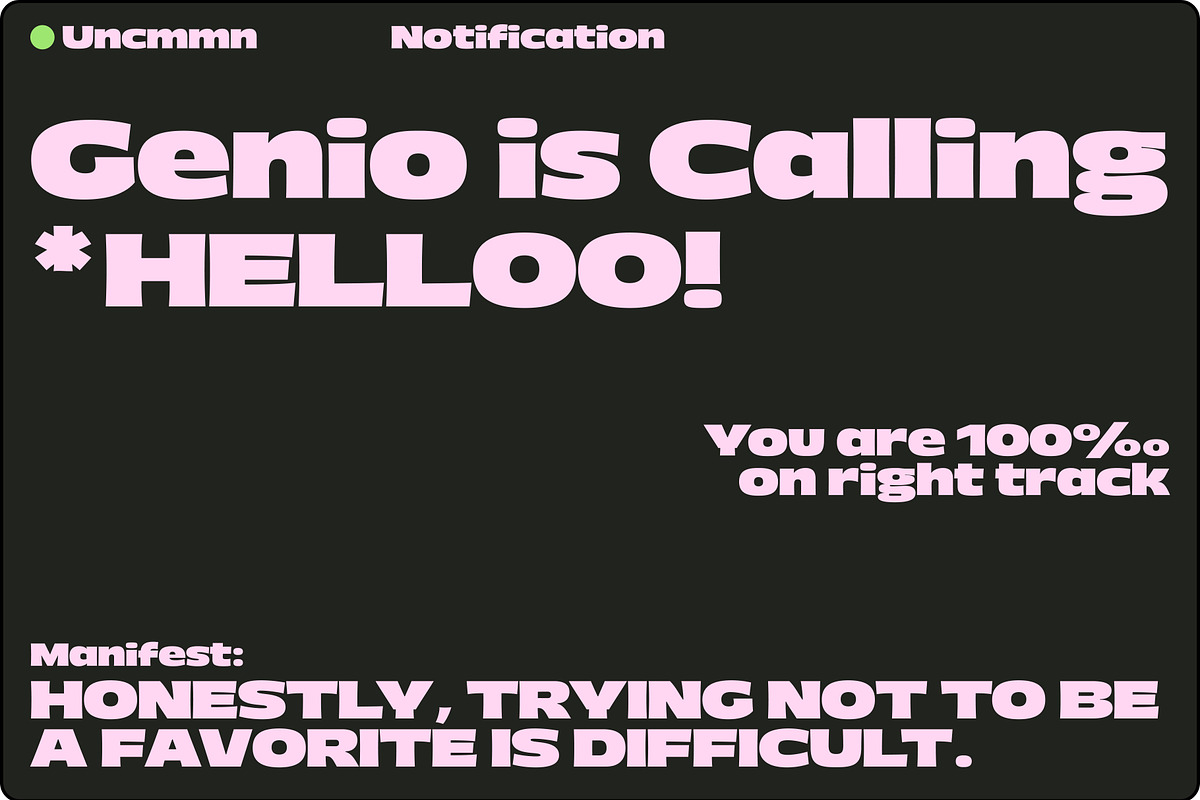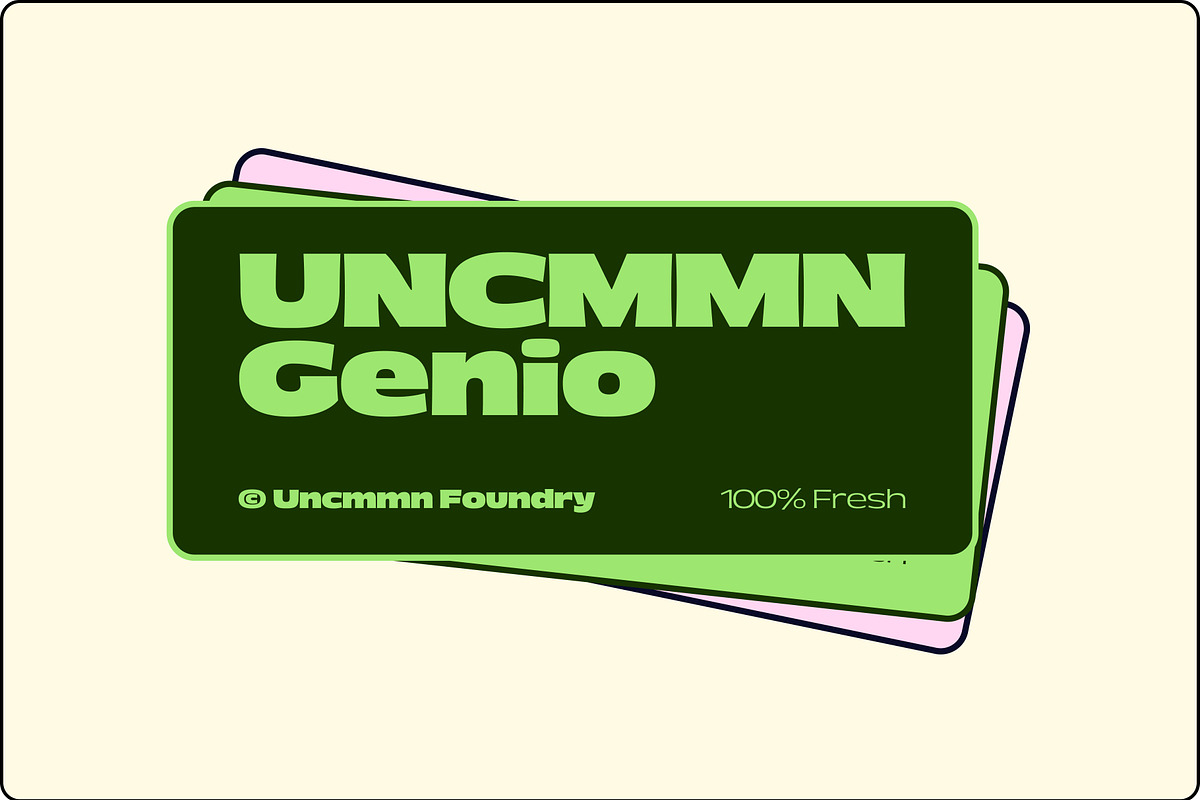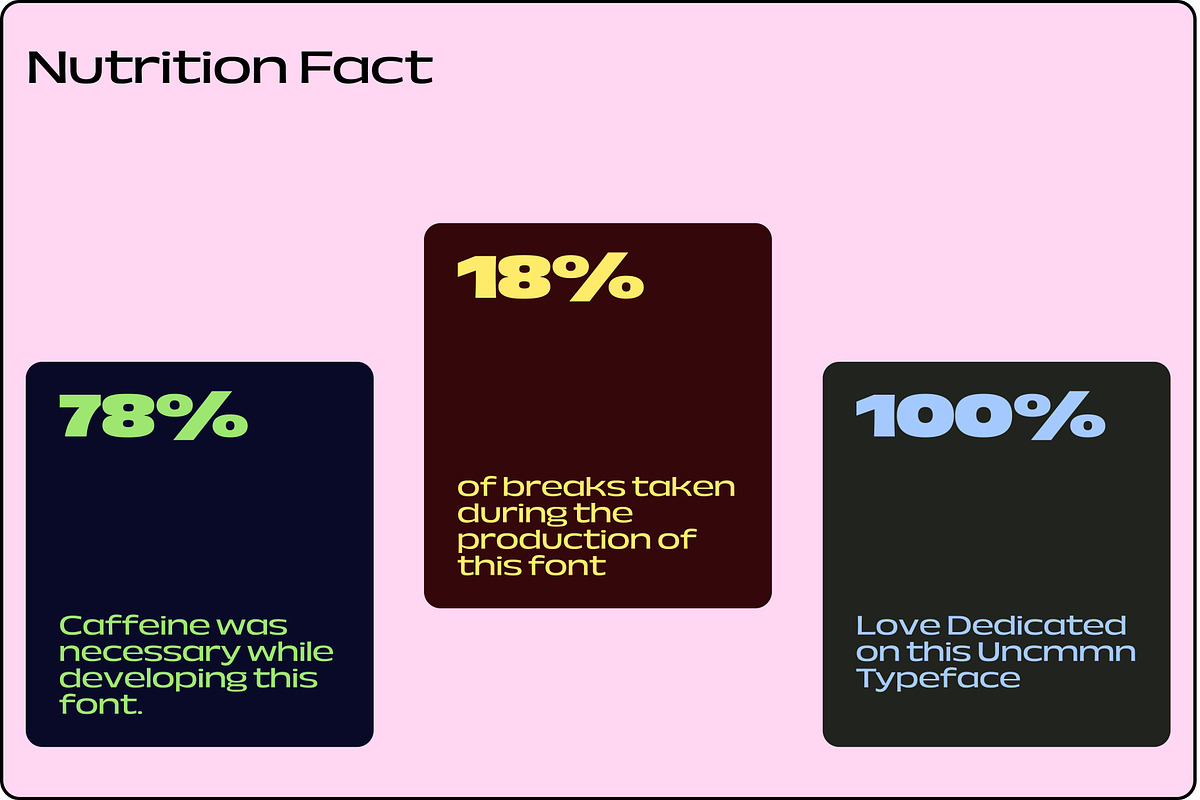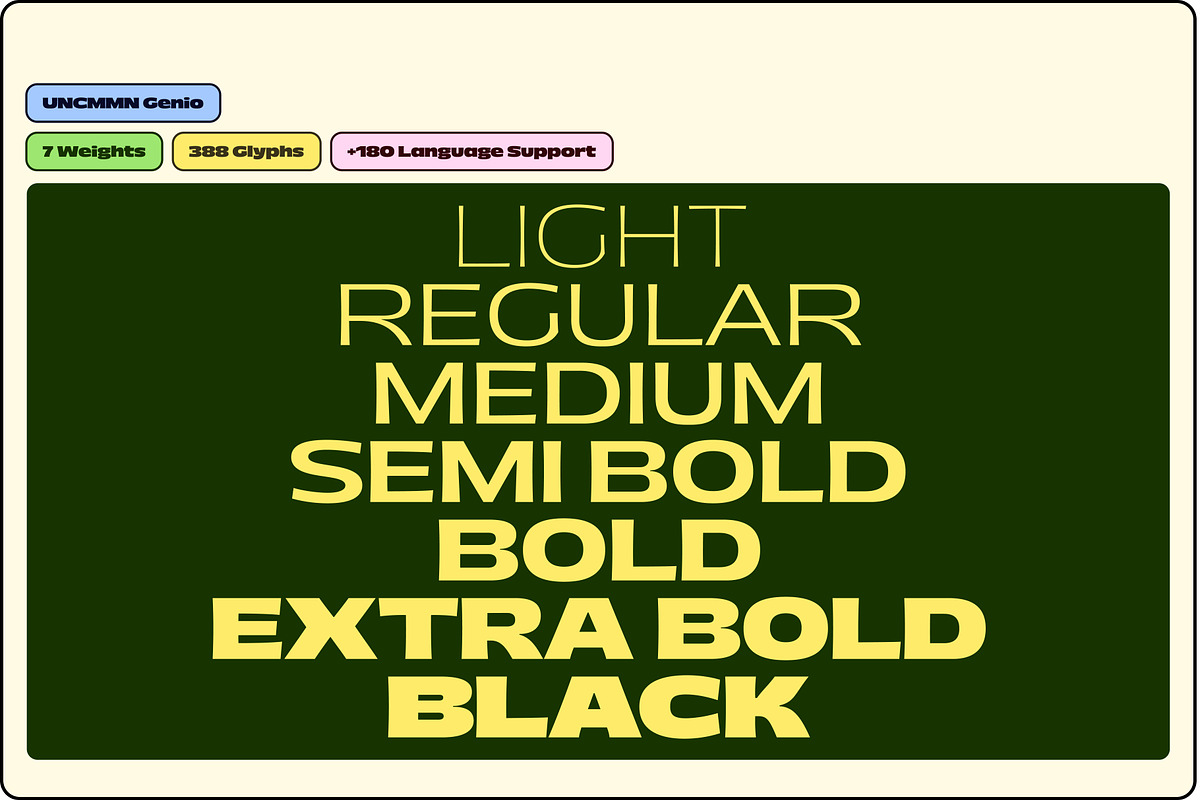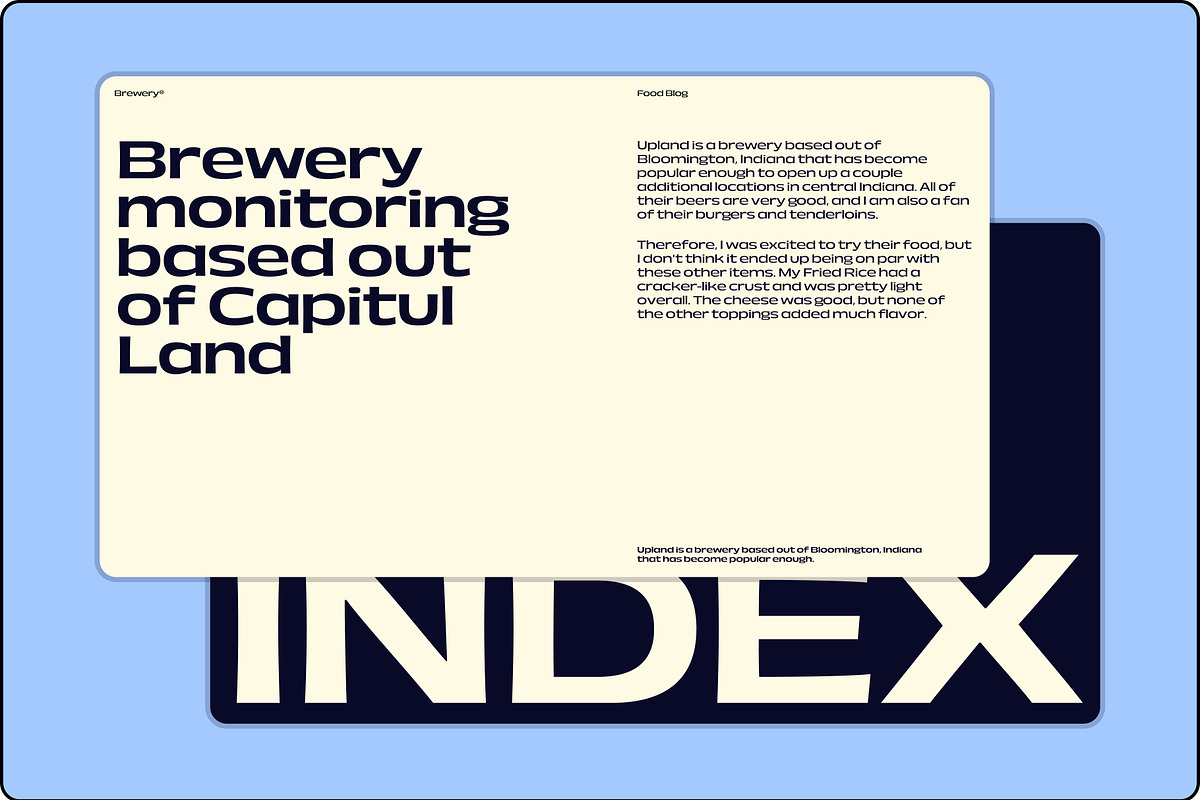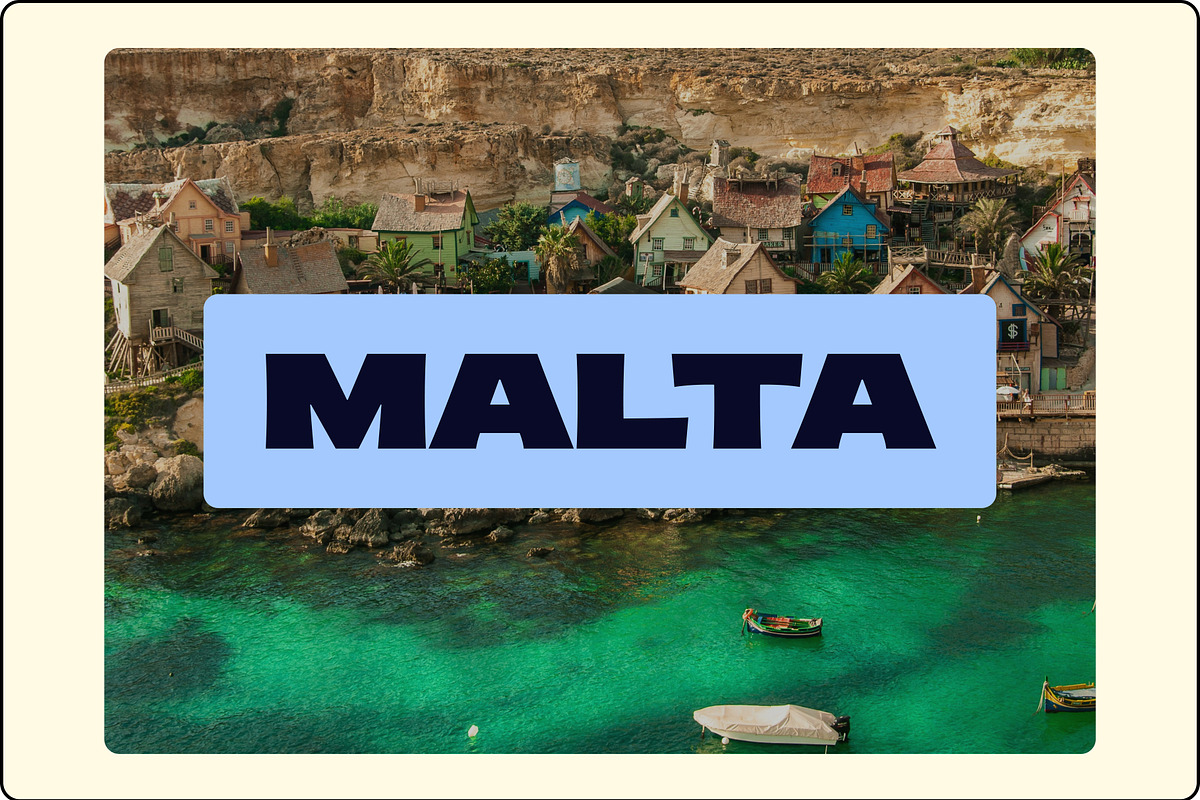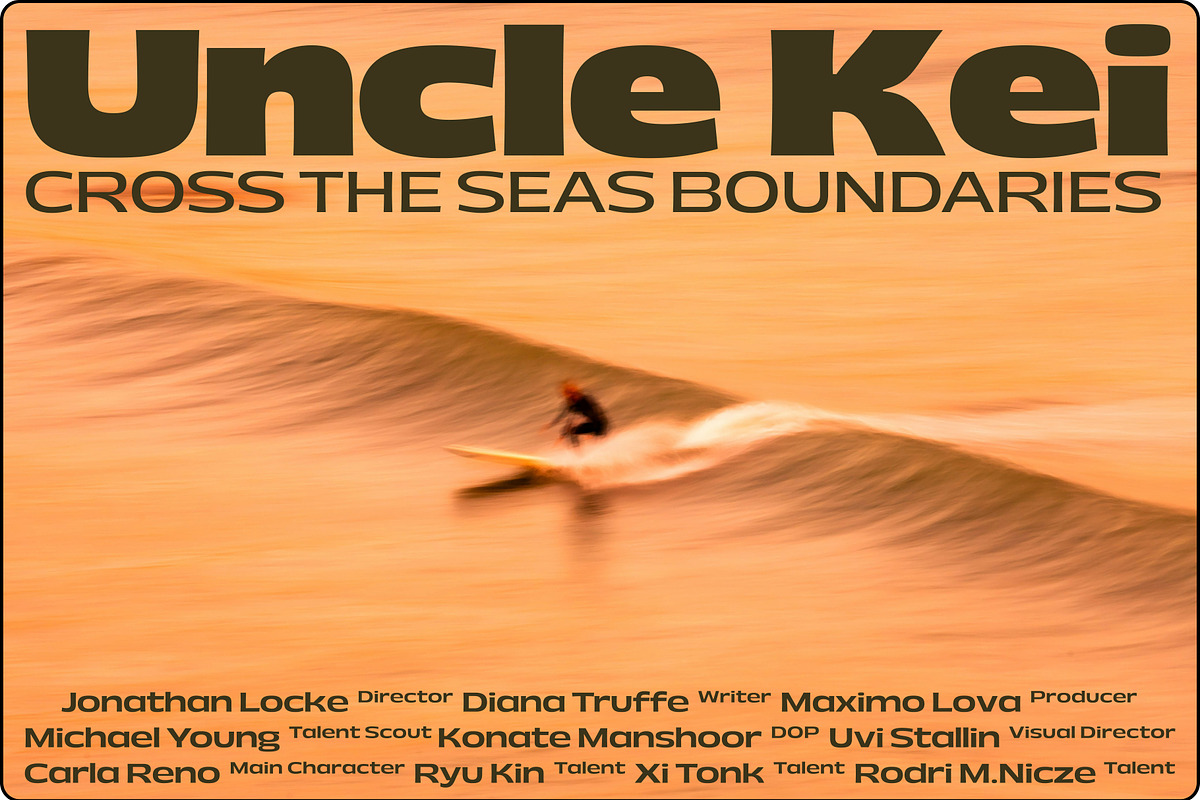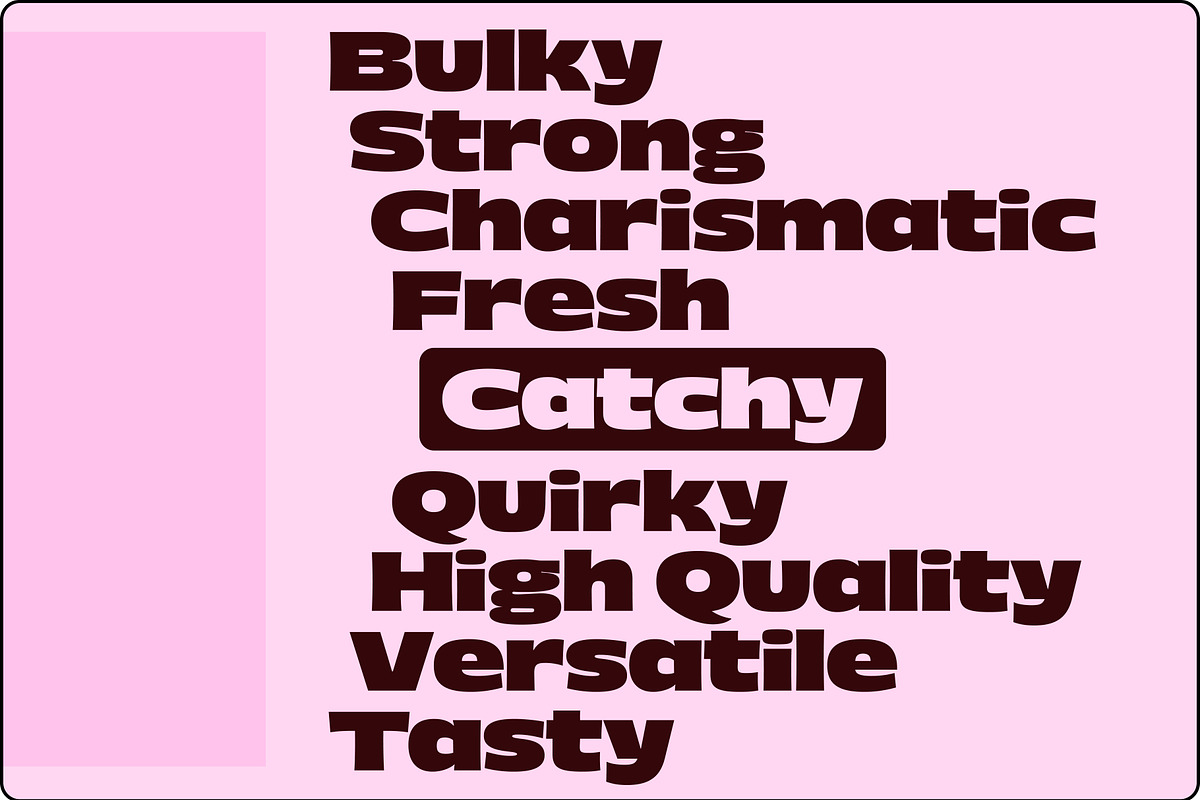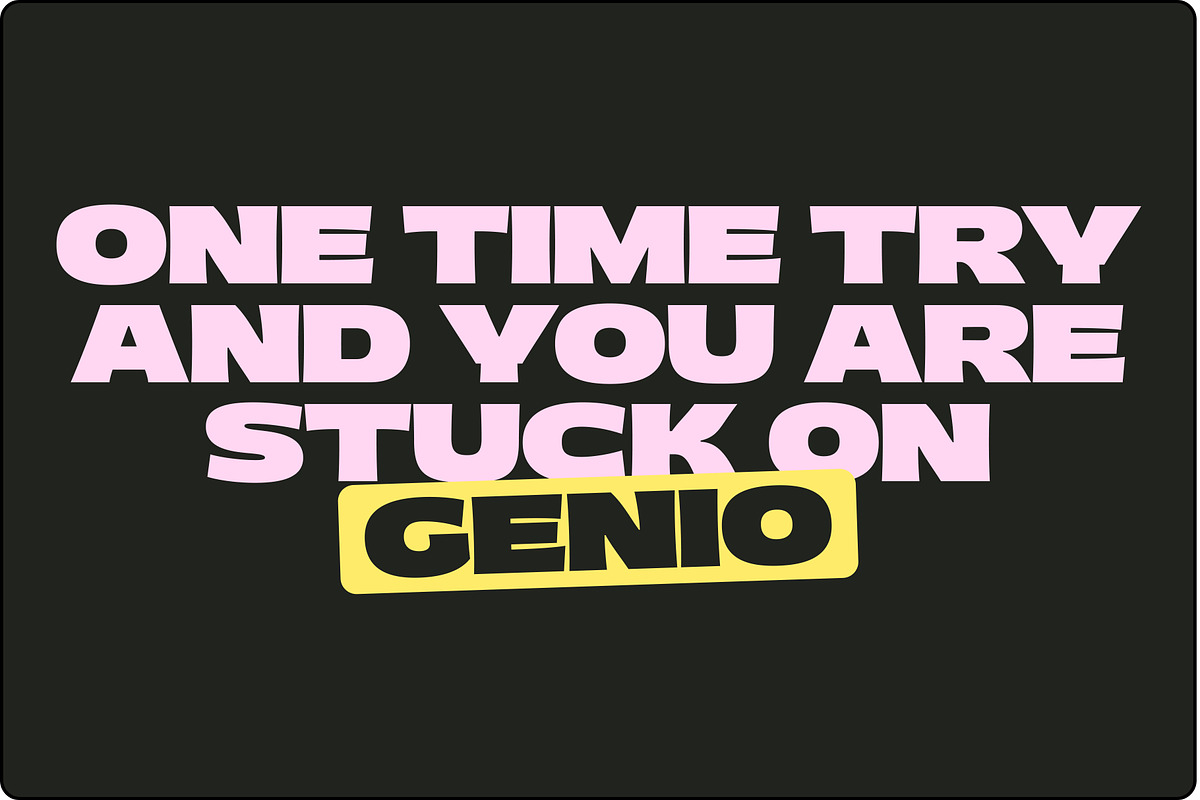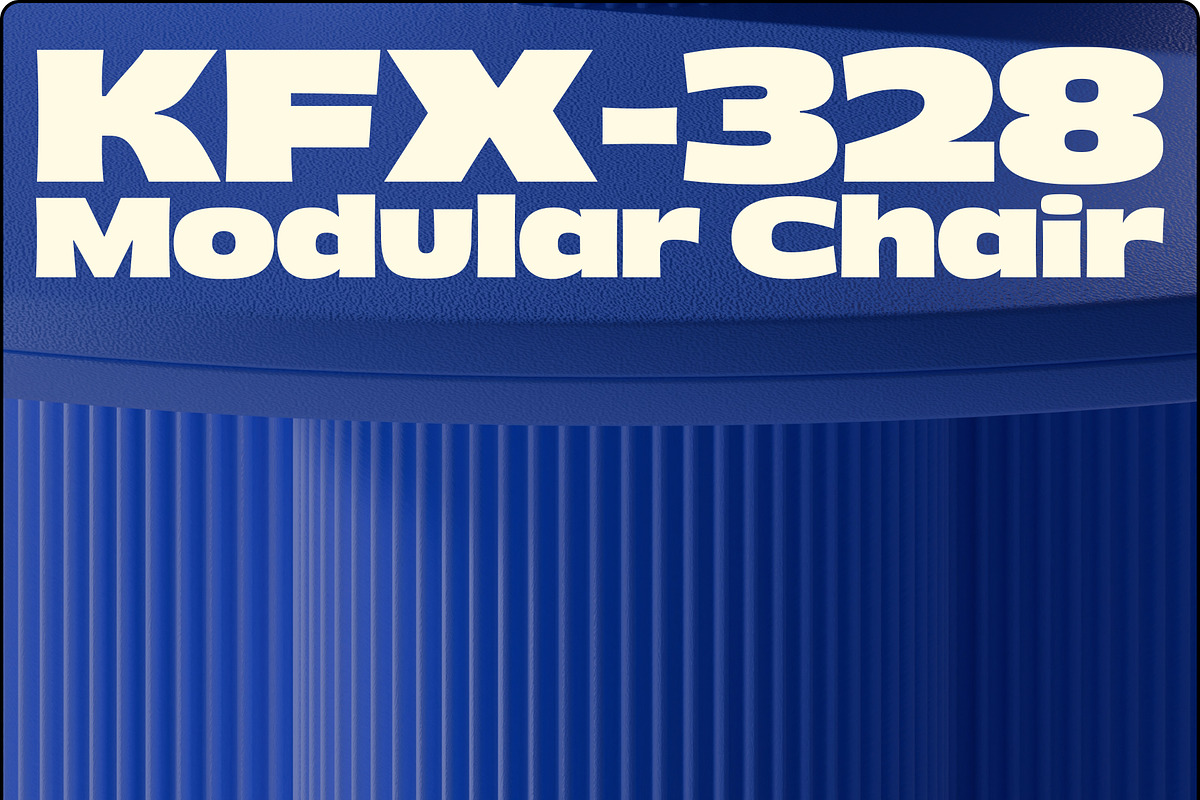
Uncmmn Genio - Display Sans Serif
UNCMMN Genio is a geometric sans-serif typeface that blends clarity with a modern sense of sophistication. Its design emphasizes precise construction with even stroke widths, clean terminals, and subtle curves that prevent the letterforms from feeling too mechanical. This balance makes it highly legible at both small and large sizes, allowing it to perform equally well in body text and in display applications. The overall impression is sleek and contemporary, yet approachable—an aesthetic that works seamlessly across branding, editorial layouts, and digital interfaces.
The type family offers a wide range of weights, from Light to Black, which enhances its versatility. Lighter cuts communicate elegance and refinement, while heavier styles create a bold, confident presence suitable for headlines or impactful brand statements. The consistent geometry across all weights ensures harmony within compositions, while the proportional spacing and clear forms make reading effortless. With its combination of functional clarity and subtle personality, UNCMMN Genio positions itself as a strong choice for projects that demand both professionalism and visual distinction.